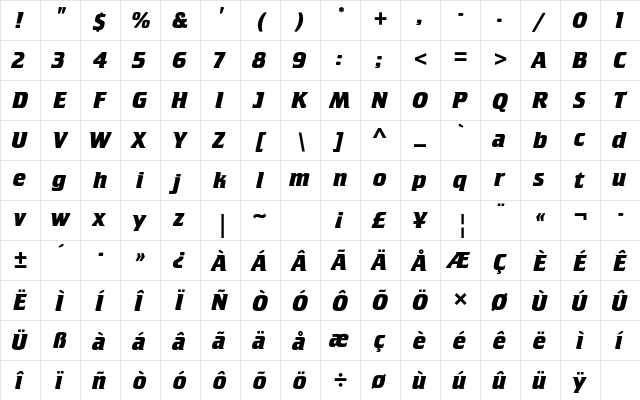
Crillee Bold Italic Std Regular
| Designer | Peter O'Donnell |
Design Context for Crillee Bold Italic Std Typeface
Crillee Bold Italic Std offers clean, dependable letterforms without strong stylistic allegiance, making it a practical choice for designers who need flexibility. The slanted form adds forward momentum and visual energy. The heavy weight commands attention and anchors typographic hierarchies.
Pro Tip: Use Crillee Bold Italic Std for emphasis, pull quotes, and subheadings where its slanted energy can add rhythm to the layout.